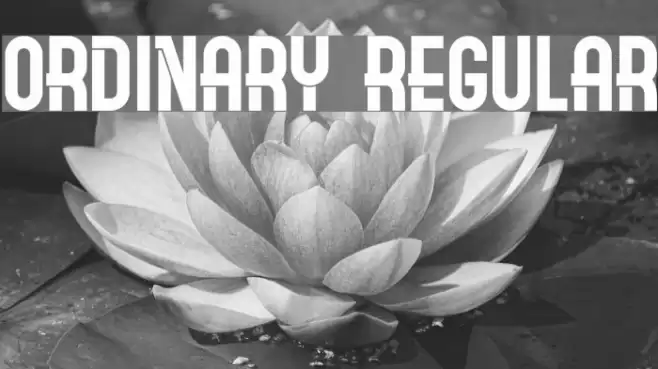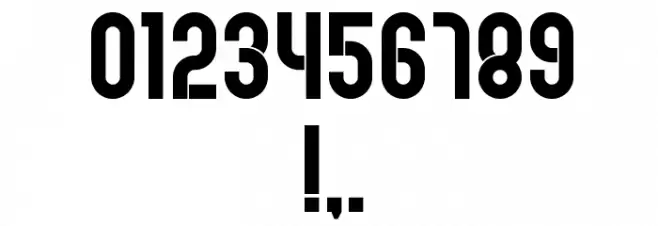
Ordinary Regular Font
Ordinary Regular Description
This font features a bold and striking design with a modern aesthetic. The characters are constructed with a geometric precision, showcasing a strong vertical emphasis and uniform stroke width. The uppercase letters are particularly prominent, with a block-like appearance that commands attention. The numerals and punctuation marks maintain the same boldness, ensuring consistency across all characters. This font's clean lines and robust structure make it highly legible, even at smaller sizes, while its boldness ensures it stands out in any context.
A bold, geometric font with a modern and striking appearance from Uncategorized fonts.
- Proposed Projects: Ideal for branding, headlines, posters, and any design project requiring a strong visual impact.